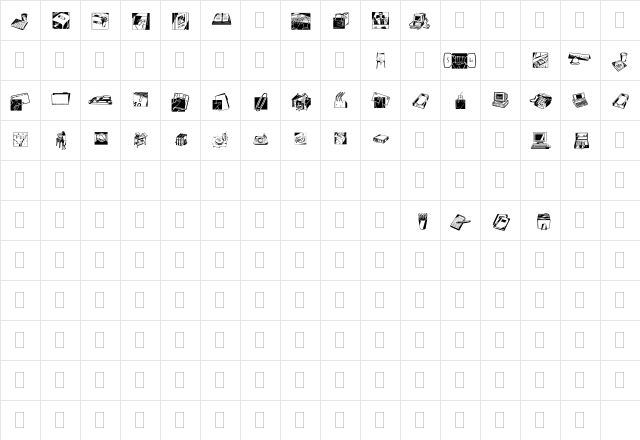
DF Industrials Two Regular
Design Context for DF Industrials Two Typeface
DF Industrials Two is a composed and adaptable typeface that performs quietly and consistently across a wide range of design contexts.